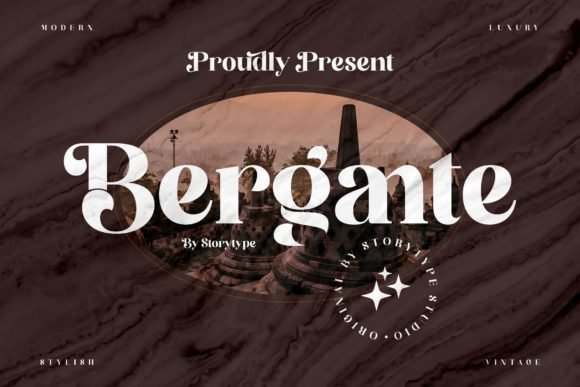
Introduction to Bergante Font
Bergante is a bold, stylish and thick lettered serif font.
This font is PUA encoded which means you can access all of the glyphs and swashes with ease Add it confidently to your favorite creations and let yourself be amazed by the outcome generated.
Key Features of Bergante Font